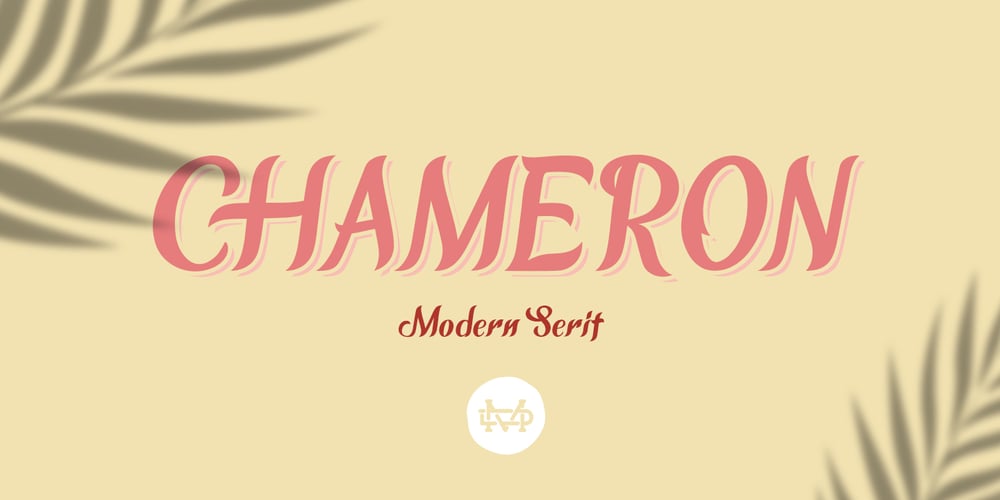
Chameron
Chameron font
Chameron Font Family was designed by Suandana ipandemade and published by madeDeduk. Chameron contains 2 styles and family package options. Chameron is a modern typeface. suitable to create any branding, product packaging, invitation, qoutes, t-shirt, label, poster, logo etc.Feature – UPPERCASE – Lowercase – Number & Symbol – International Glyphs – Multilingual Support – UPPERCASE Alternative – Lowercase AlternativeIf you need anything else please contact dedukvic@gmail.com. and more previews on my Instagram here : https://www.instagram.com/acekelgondolayu/?hl=enHope you enjoy it.